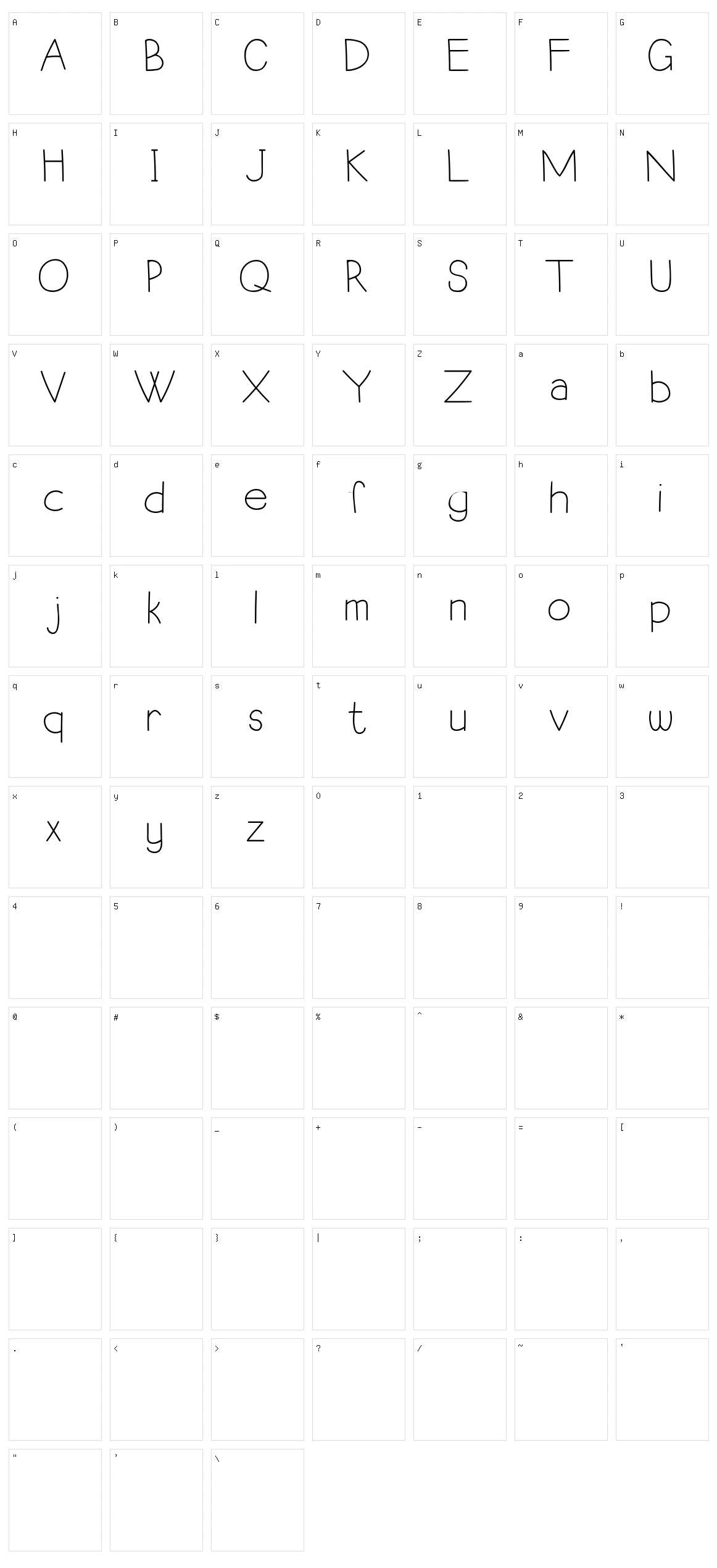
Inspired by A Legendary Comic Sans MS
Introducing
Comic San DY
A handwriting font made by @Sandylukee
It's a great font for any purpose such as presentation, Article, Magazine, Letter, etc
especially for fun, young or non-formal theme.